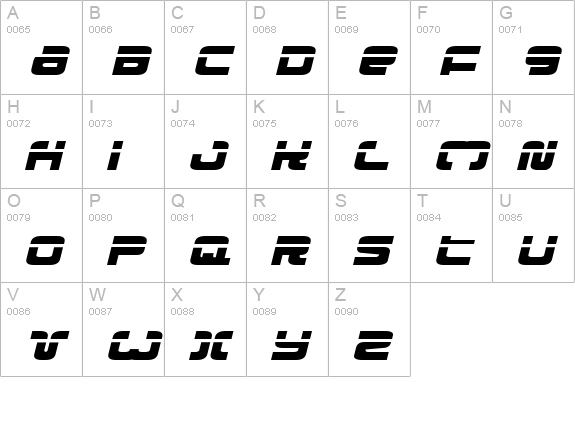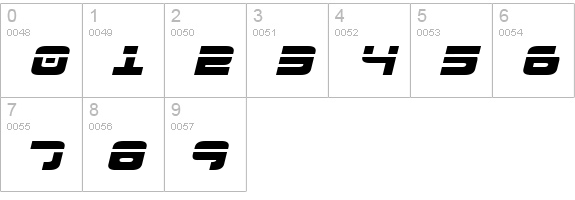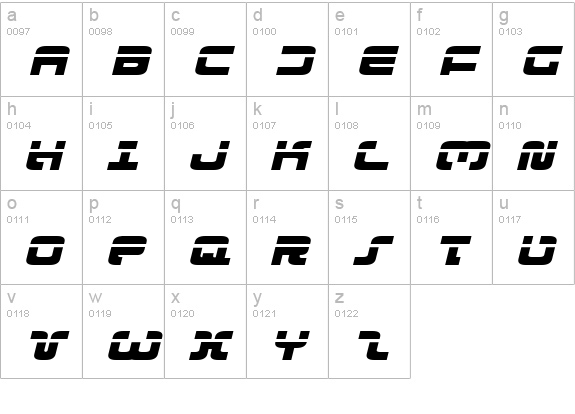
Exedore Laser Exp Italic is a distinctive, italic variant in the Exedore typeface family \xE2\x80\x94 well suited to design and typography projects.
Introducing the Exedore Laser Exp Italic font - a sleek and modern typeface designed to make your projects stand out. With its futuristic and edgy aesthetic, this font is perfect for creating eye-catching designs that command attention. The Exedore Laser Exp Italic font features a unique laser-cut appearance that adds a touch of innovation to any project. What's even better is that this font is available for free download at FontsMarket.com. Yes, you read that right - you can get your hands on this stunning typeface without spending a dime. Whether you're working on a branding project, website design, or any other creative endeavor, the Exedore Laser Exp Italic font is sure to elevate your work to the next level. Don't miss out on the opportunity to add this dynamic font to your collection. Download Exedore Laser Exp Italic today and let your creativity shine!